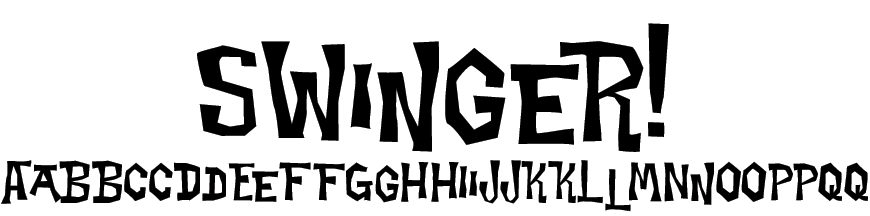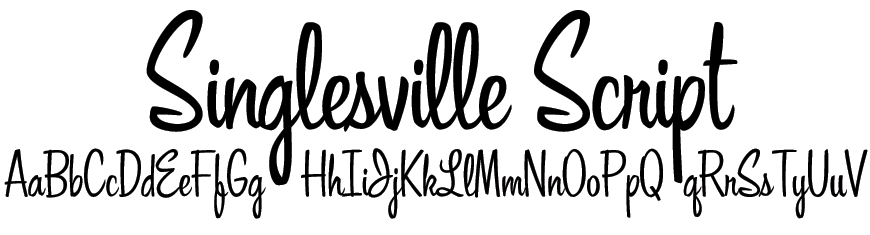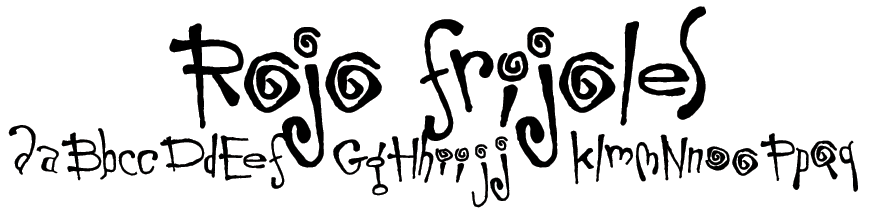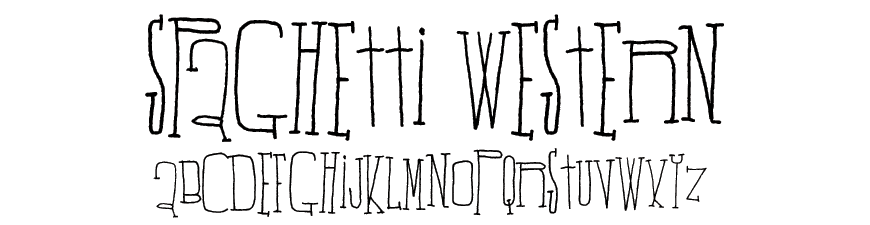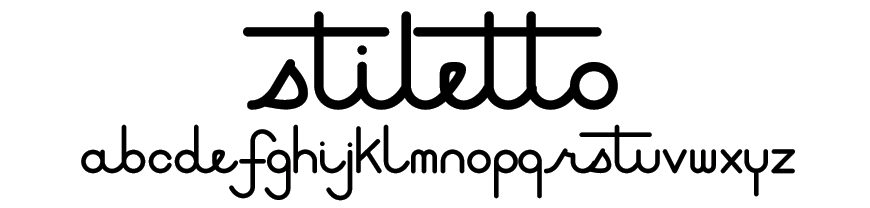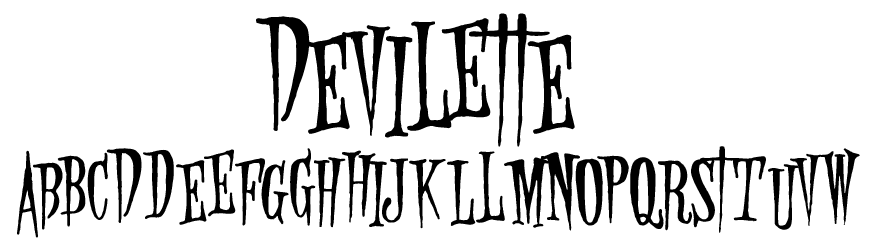
Celebrate 1950s design with the TV Dinner Font Set! This delightful mid-century inspired font set contains everything from playful script styles to streamlined diner inspired menu lettering to classic television titling!
TV Dinner Font Set